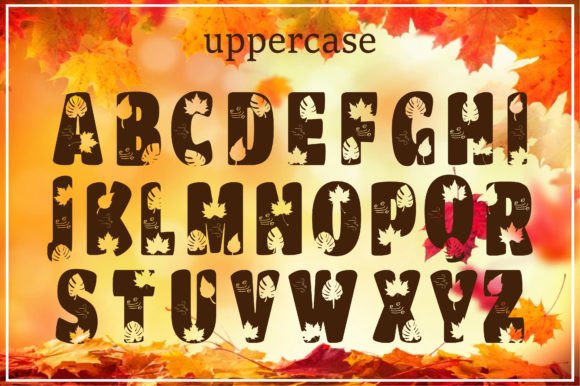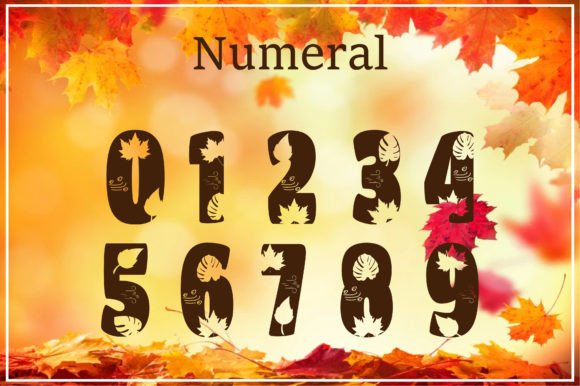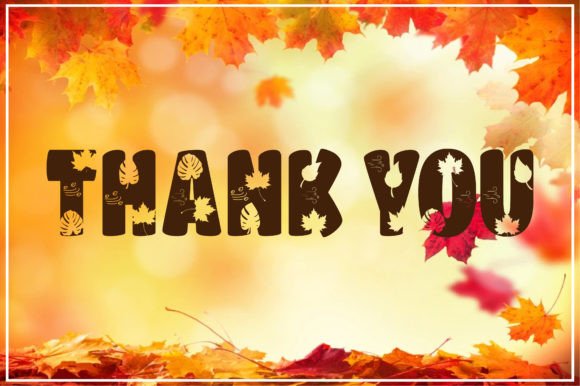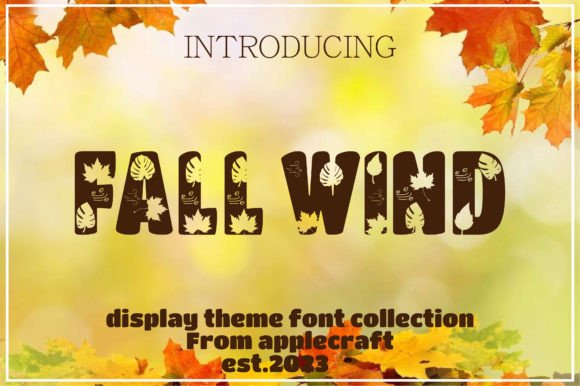
Introducing Fall Wind Font: Add a Touch of Nature to Your Designs
As the seasons change and the leaves start to fall, designers and crafters are on the lookout for inspiration to add a touch of nature to their work. If you’re looking for a unique and eye-catching font to give your designs a fun and natural twist, look no further than Fall Wind Font. This stunning display font features tiny leaf designs that will add a touch of whimsy and charm to any project.
What is Fall Wind Font?
Fall Wind Font is a carefully crafted display font that showcases intricate, tiny leaf designs. The font is perfect for designers and crafters who want to add a touch of the outdoors to their work. With its unique and eye-catching design, Fall Wind Font is sure to make your projects stand out from the crowd.
Key Features of Fall Wind Font
- Unique Leaf Design: The font features intricate, tiny leaf designs that will add a touch of nature to your designs.
- Eye-Catching Display Font: Fall Wind Font is a display font designed to grab attention and make a statement.
- Perfect for Natural and Fun Designs: The font is ideal for designers and crafters who want to add a touch of whimsy and charm to their work.
How to Use Fall Wind Font in Your Designs
Fall Wind Font is a versatile font that can be used in a variety of design projects, including:
- Signs and Banners: Use Fall Wind Font to create eye-catching signs and banners for fall events and promotions.
- Social Media Graphics: Add a touch of nature to your social media graphics with Fall Wind Font.
- Invitations and Party Decor: Use Fall Wind Font to create beautiful and unique invitations and party decor for fall gatherings.
- Packaging and Branding: Add a touch of whimsy and charm to your packaging and branding with Fall Wind Font.
Why Choose Fall Wind Font?
With so many fonts to choose from, why choose Fall Wind Font? Here are just a few reasons why designers and crafters love this font:
- Unique Design: Fall Wind Font features a unique and eye-catching design that will make your projects stand out.
- Versatile: Fall Wind Font can be used in a variety of design projects, from signs and banners to social media graphics and packaging.
Tips and Tricks for Using Fall Wind Font
Here are a few tips and tricks for using Fall Wind Font in your designs:
- Experiment with Colors: Try pairing Fall Wind Font with different colors to create a unique and eye-catching design.
- Mix and Match Fonts: Combine Fall Wind Font with other fonts to create a unique and interesting design.
- Use in Combination with Images: Use Fall Wind Font in combination with images of leaves, flowers, and other natural elements to create a beautiful and cohesive design.
| Font Name | Fall Wind Font |
| Author | Apple Craft |
Fall Wind Font is a unique and eye-catching display font that features intricate, tiny leaf designs. Perfect for designers and crafters who want to add a touch of nature to their work, this font is sure to make your projects stand out. With its easy-to-use design and versatile applications, Fall Wind Font is a must-have for any designer or crafter looking to add a touch of whimsy and charm to their work.